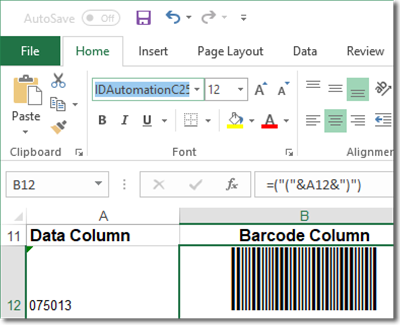
Industrial Code 2 of 5 Barcode Fonts
The Code 25 Barcode Font Advantage Package supports the non-interleaved 2/5
Details of the Industrial Code 25 Barcode Font Package
Industrial
Code 2 of 5 is a low-density numeric barcode that does not require a checksum.
It is a non-interleaved barcode that is easier to print than Interleaved 2 of 5
because interleaving is not required.
Industrial 2 of 5 barcode fonts are scalable and should be printed at the
correct font size to suit both application and scanner equipment. The Code 2 of
5 barcode font was designed to be printed at 6 to 20 points with a minimum font
size of 6 points; however, it can print smaller point sizes if the printer and
scanner equipment support it.
Easy To Use:
The symbology of the Industrial Code 2 of 5 character set consists of barcode
symbols representing the numbers 0-9, the start character, and the stop
character. In Code 2 of 5 barcode fonts, the parentheses are used as start
and stop characters.
For example, to create a barcode
that encodes the data "1234" with the Code 25 Font:
- Type the start character; in this example, it is "(".
- Type the data; in this example, it is "1234".
- Type the stop character; in this example, it is ")".
Multiple Versions Provided:
Four versions of Code 2 of 5 barcode fonts are provided to support different
height-to-width requirements. The last character in the Code 25 barcode font
name determines the height of the barcode, with the shortest being
IDAutomationC25XS and the tallest being IDAutomationC25L.
To decide which Code 2 of 5 barcode font to use, first, print out the
IDAutomationC25XS barcode font at 10 or 12 points and determine the
smallest size that will work with the barcode scanner. Then, choose the
tallest version that will fit in the scanning area.